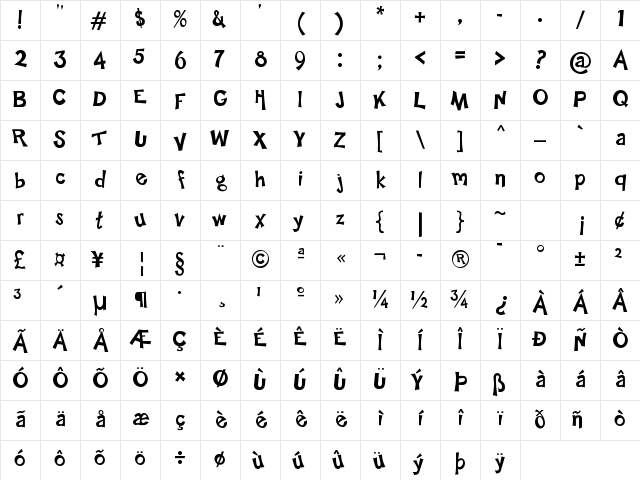
Happy Sans Regular Free Font
Happy Sans Regular
Designer: Stephen Knouse
Design Context for Happy Sans
Happy Sans is a composed and adaptable typeface that performs quietly and consistently across a wide range of design contexts.